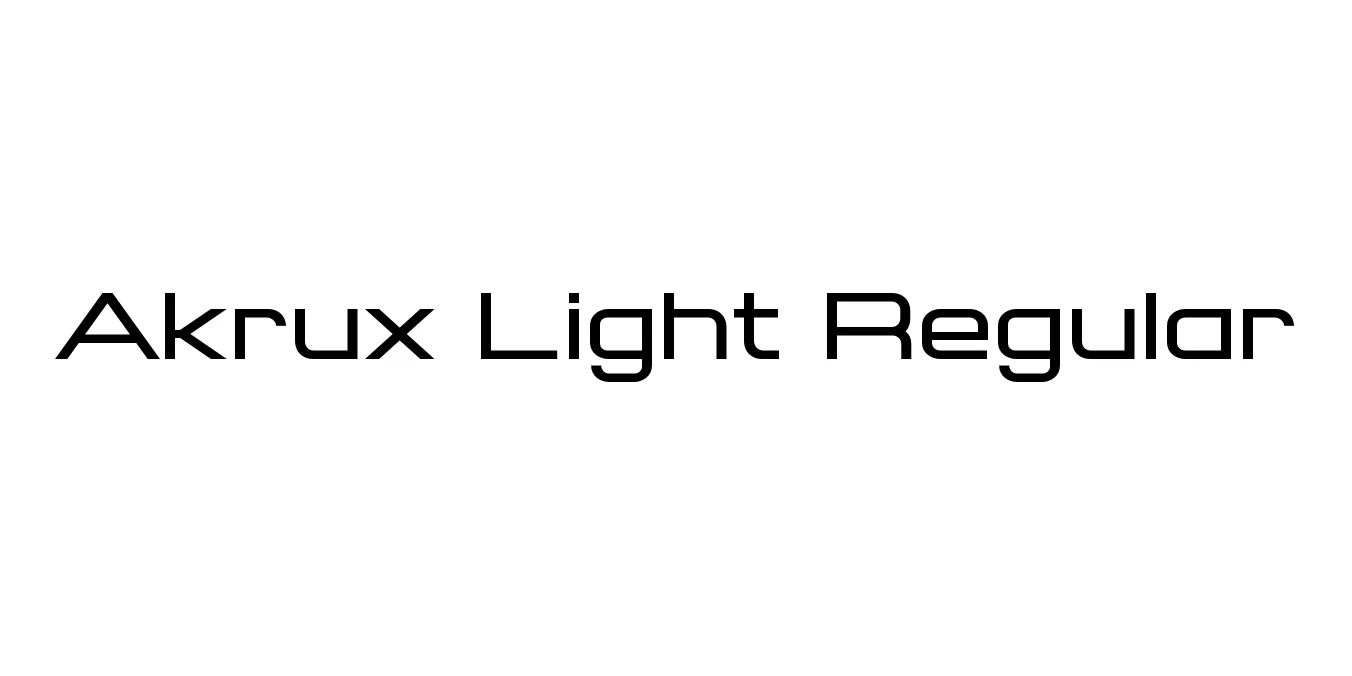
Akrux Light Regular
Designed by Tikhon Reztcov
| Font Name | Akrux Light |
| Category | Futuristic Sans Serif |
| Designer | Tikhon Reztcov |
Akrux Light Regular is a sleek, futuristic sans-serif typeface designed by Tikhon Reztcov. Known for its wide geometric proportions and clean, technical aesthetic, this font captures a modern sci-fi vibe that is both elegant and authoritative. The light weight variant offers a more breathable and refined appearance compared to its bolder counterparts, making it a versatile choice for contemporary design layouts where space and minimalism are key.
The typeface is particularly well-suited for high-tech branding and digital interfaces where clarity and a forward-thinking feel are paramount. Its unique character construction allows it to stand out in display settings, while its minimalist roots ensure it remains legible across various platforms. Whether used for space-themed media or minimalist luxury branding, Akrux Light Regular delivers a sophisticated and innovative visual language for any project.
Akrux Light Regular Best Uses
Ideal for tech startups, modern corporate identities, and minimalist luxury logos.
Great for headers, hero sections, and menu navigation on futuristic websites.
Perfect for UI/UX elements, HUDs, and title sequences in science fiction games.
High impact for minimalist event posters, movie titles, and gallery announcements.